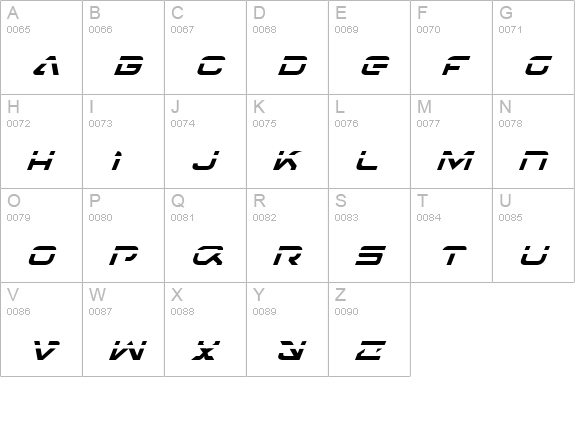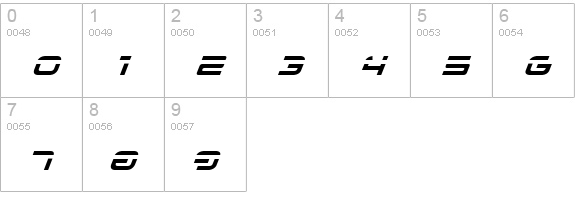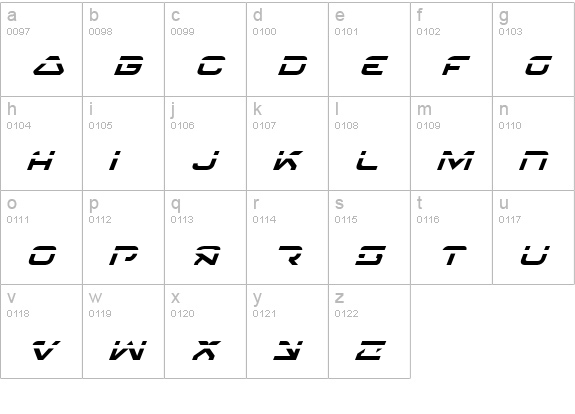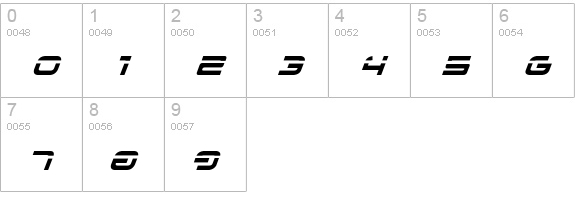
4114 Blaster Laser Italic is a distinctive, italic variant in the 4114 typeface family \xE2\x80\x94 well suited to design and typography projects.
Introducing 4114 Blaster Laser Italic font - a sleek and futuristic typeface that exudes energy and modernity. With its sharp angles and dynamic curves, this font is perfect for adding a sci-fi edge to your designs. Whether you're working on a poster, logo, or website, 4114 Blaster Laser Italic font will make your text pop and stand out. And the best part? It's completely free! You can download the 4114 Blaster Laser Italic font for free at FontsMarket.com. Don't miss out on this opportunity to enhance your projects with this eye-catching and versatile font. Get your hands on it today and let your creativity soar!